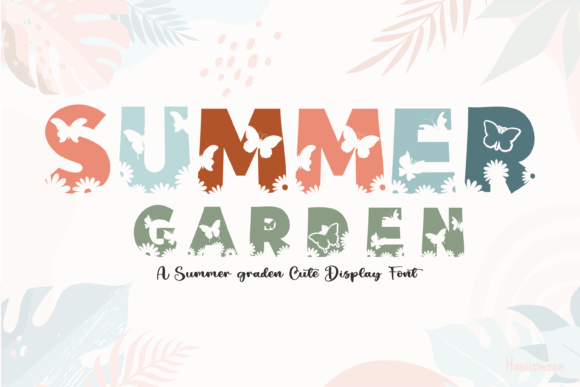
Step into the enchanting realm where creativity blossoms, and typography transforms into art – behold the Summer Garden Font, a font family that's not just a collection of letters, but a gateway to a world of imagination and boundless potential.
In this realm of endless possibilities, where fonts dance like fairies and words paint vivid stories, the Summer Garden Font emerges as a radiant gem. It's a font that's as refreshing as a summer breeze, as joyful as a child's laughter, and as captivating as a flower in full bloom.
With its whimsical charm and playful spirit, the Summer Garden Font adds a touch of magic to every design it graces. Its delicate strokes, reminiscent of petals gently swaying in the summer breeze, evoke a sense of lightness and carefree joy. It's a font that makes you smile, that makes you dream, and that makes you believe in the power of imagination.
Journey through the world of the Summer Garden Font and discover its boundless versatility. Whether you're crafting logos, designing posters, creating social media graphics, or simply adding a personal touch to your digital creations, this font is your faithful companion, ready to transform your ideas into masterpieces.
Let the Summer Garden Font be your muse, your creative spark, your gateway to a world where anything is possible. Dive into its depths and let your imagination soar. The only limit is your own creativity.